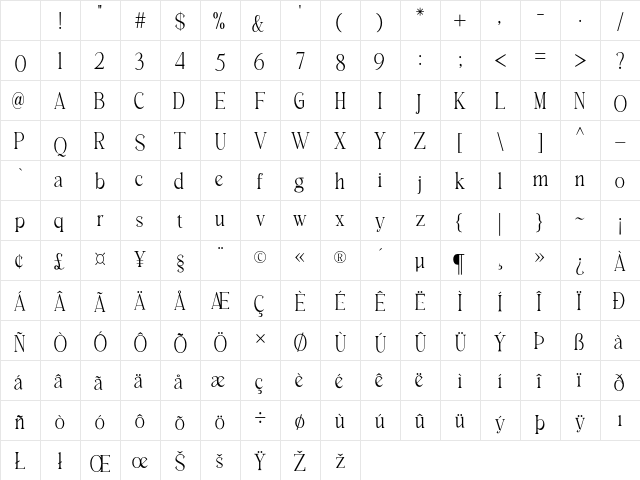
Breasto Display is built around its visual character rather than neutral utility - its distinctive forms are designed to make an impression at display sizes.
Font Pairing: Pair with a clean neutral sans-serif for body copy to let Breasto Display's character lead without overwhelming the composition.
Pro Tip: Use Breasto Display exclusively at display sizes - it was designed to be seen, not read at length. Let a neutral companion handle body copy.